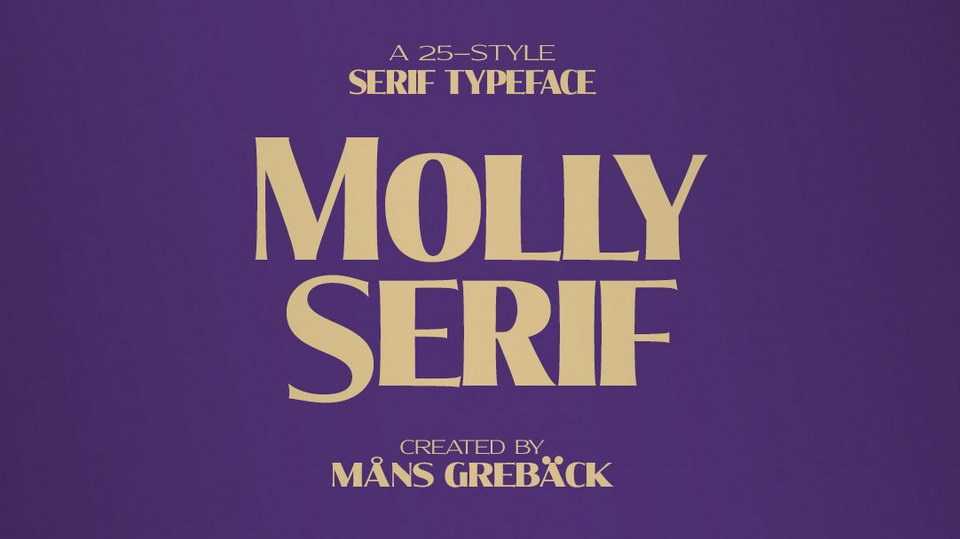
Download Molly Serif typeface, a multi-style serif font family with an appearance similar to traditional sign painting, this all-caps typeface works great in classic, genuine and crafty designs.
Designer: Måns Grebäck